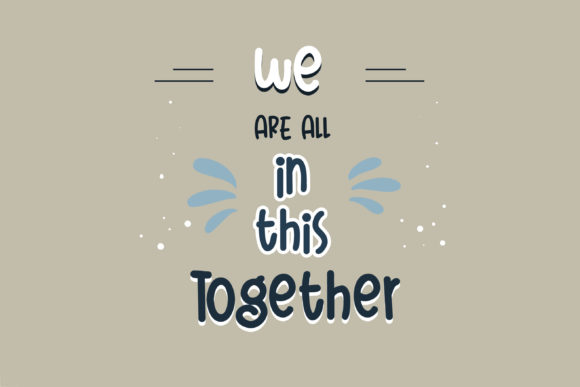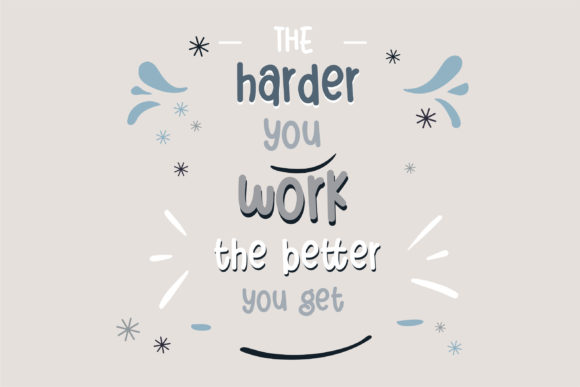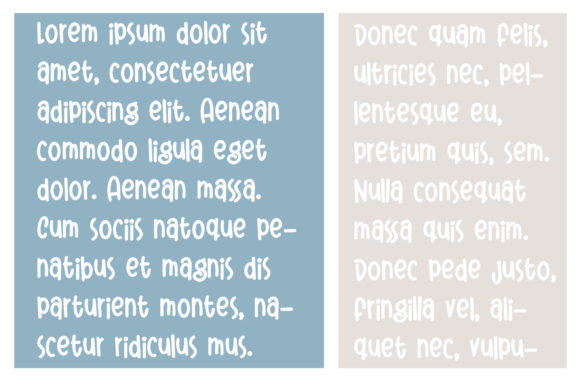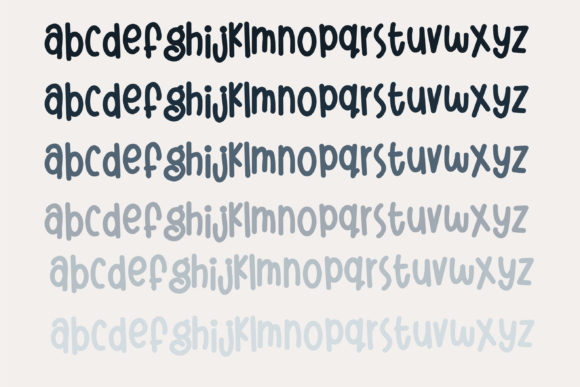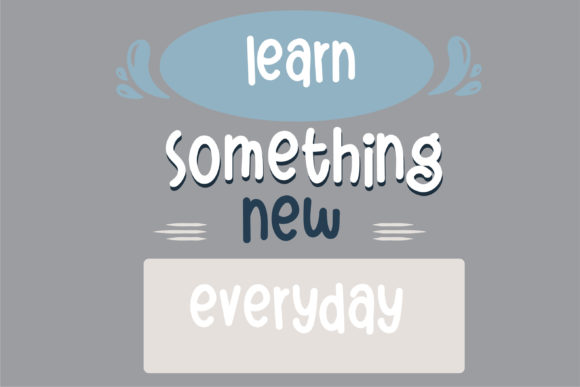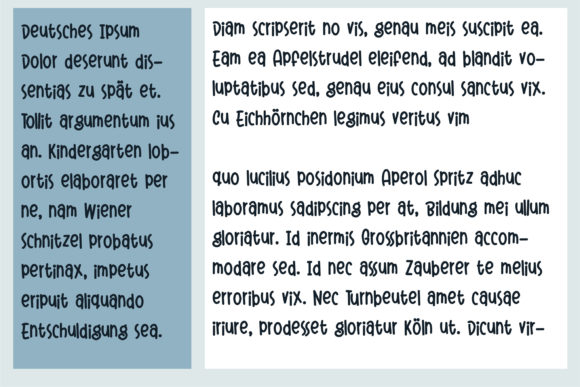
Dapplegrim Font: Elevate Your Designs with a Chic, Fun, and Quirky Handwritten Style
Are you tired of using the same old fonts in your designs? Look no further than Dapplegrim Font, a fresh and exciting handwritten font that’s perfect for adding a touch of personality to your projects. With its chic, fun, and quirky vibe, Dapplegrim is ideal for a wide range of applications, from product packaging and branding to magazine covers, social media, and wedding designs.
What Makes Dapplegrim Font So Special?
Dapplegrim Font is a beautifully crafted handwritten font that’s designed to add a touch of whimsy and charm to your designs. Its unique and quirky style sets it apart from more traditional fonts, making it perfect for designers and crafters who want to create something truly special. Whether you’re working on a product packaging project, a branding campaign, or a wedding design, Dapplegrim Font is sure to make your work stand out.
Key Features of Dapplegrim Font
- Handwritten Style: Dapplegrim Font features a beautiful, handwritten style that’s perfect for adding a touch of personality to your designs.
- Chic, Fun, and Quirky: With its unique and quirky vibe, Dapplegrim Font is perfect for designers and crafters who want to create something truly special.
- Multipurpose: Dapplegrim Font is versatile and can be used for a wide range of applications, including product packaging, branding, magazine covers, social media, wedding designs, and more.
Dapplegrim Font is a dream come true for designers and crafters who want to add a touch of personality to their work. With its unique and quirky style, Dapplegrim Font is perfect for:
- Product Packaging: Add a touch of whimsy to your product packaging with Dapplegrim Font. Perfect for food labels, cosmetics, and more.
- Branding Projects: Create a memorable brand identity with Dapplegrim Font. Its unique style is sure to make your brand stand out.
- Magazine Covers: Add a touch of personality to your magazine covers with Dapplegrim Font. Perfect for fashion, lifestyle, and entertainment publications.
- Social Media: Use Dapplegrim Font to create eye-catching social media graphics that are sure to grab attention.
- Wedding Designs: Add a touch of romance and whimsy to your wedding designs with Dapplegrim Font. Perfect for wedding invitations, decorations, and more.
Tips for Using Dapplegrim Font
Here are a few tips for getting the most out of Dapplegrim Font:
- Experiment with Different Sizes: Dapplegrim Font looks great in a variety of sizes, so don’t be afraid to experiment and find the perfect size for your design.
- Pair with Other Fonts: Dapplegrim Font pairs well with a variety of other fonts, so try pairing it with some of your favorite fonts to create a unique look.
- Use the Swashes: Dapplegrim Font comes with a range of swashes that can be used to add a touch of personality to your designs. Don’t be afraid to get creative and use them to enhance your work.